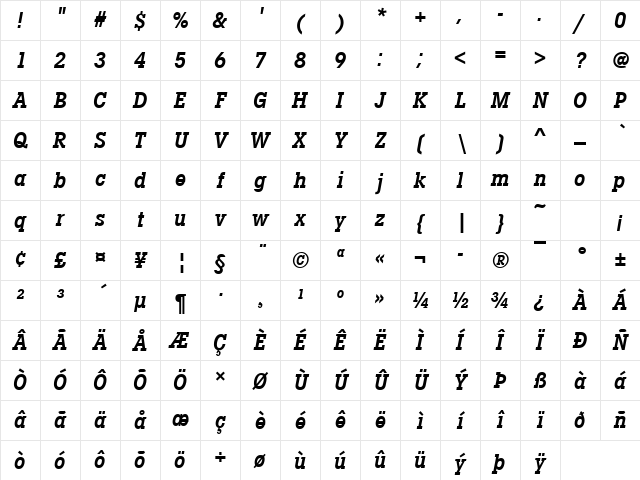
Complete LubalinGraItcTDemCon Oblique glyph index. Displaying only characters natively supported by LubalinGraItcTDemCon Oblique font.
LubalinGraItcTDemCon is a composed and adaptable typeface that performs quietly and consistently across a wide range of design contexts. The slanted form adds forward momentum and visual energy.
Pro Tip: Use LubalinGraItcTDemCon for emphasis, pull quotes, and subheadings where its slanted energy can add rhythm to the layout.